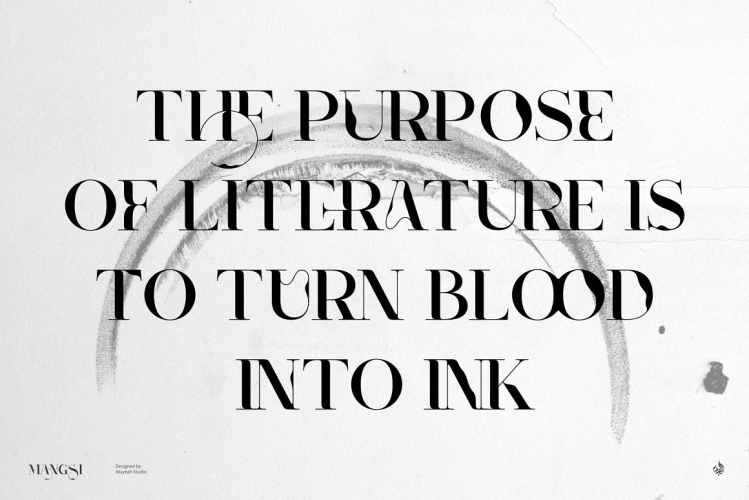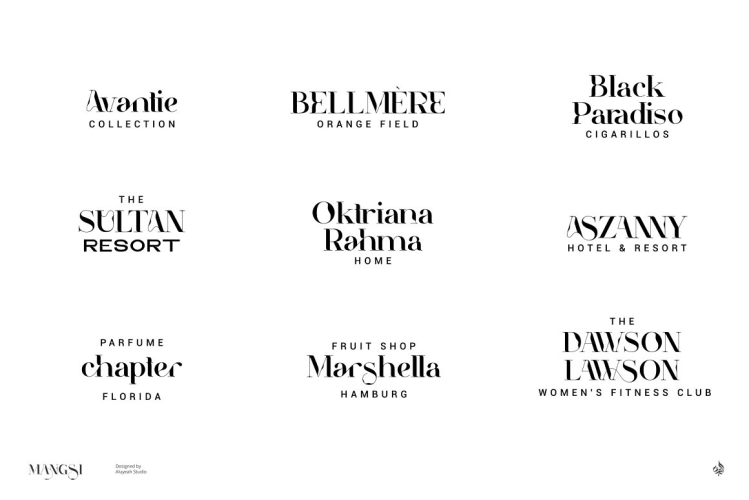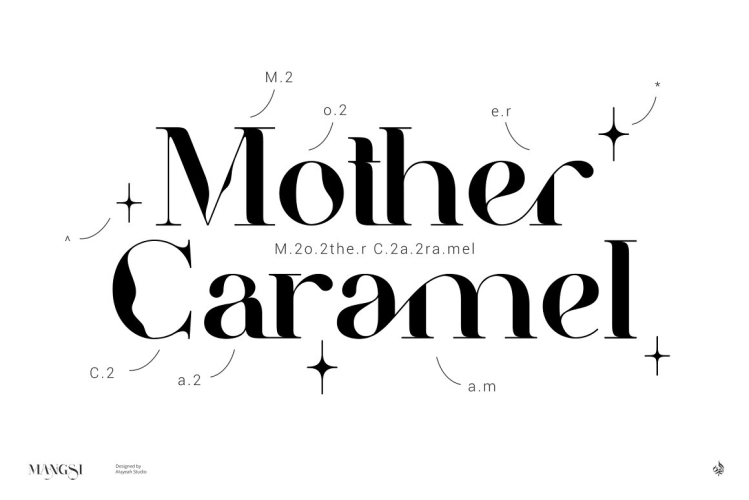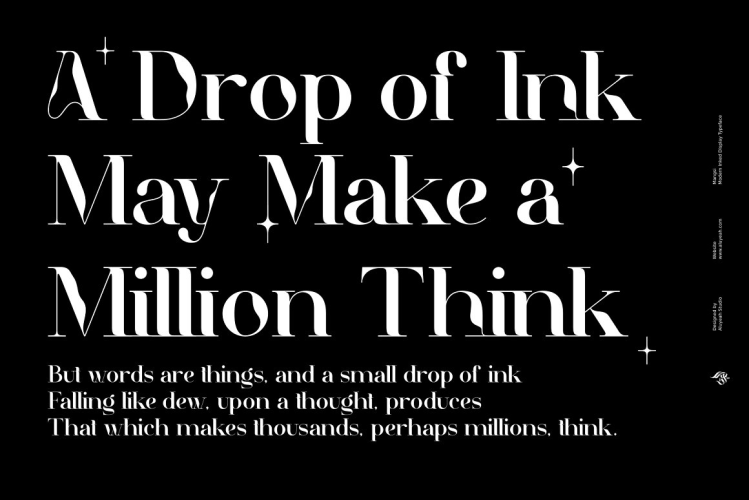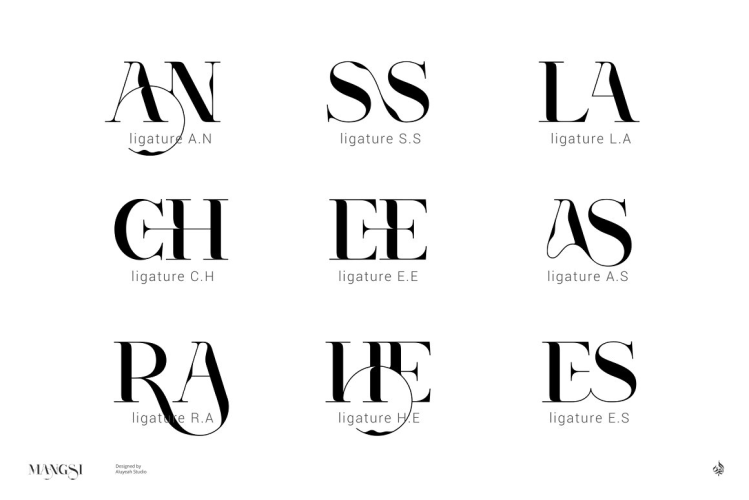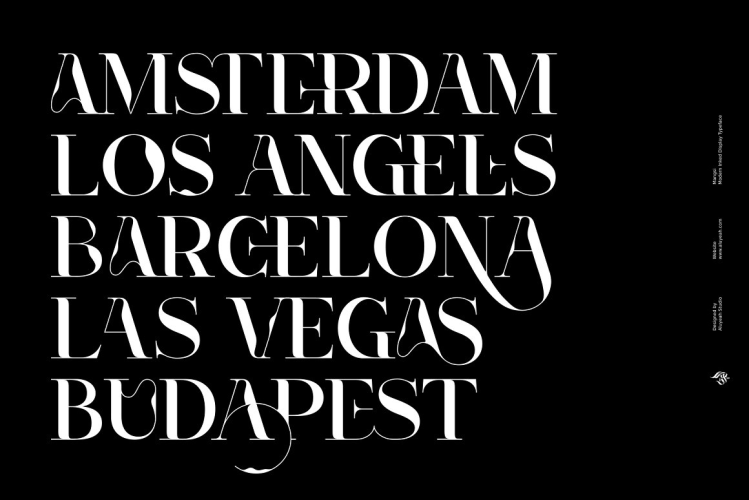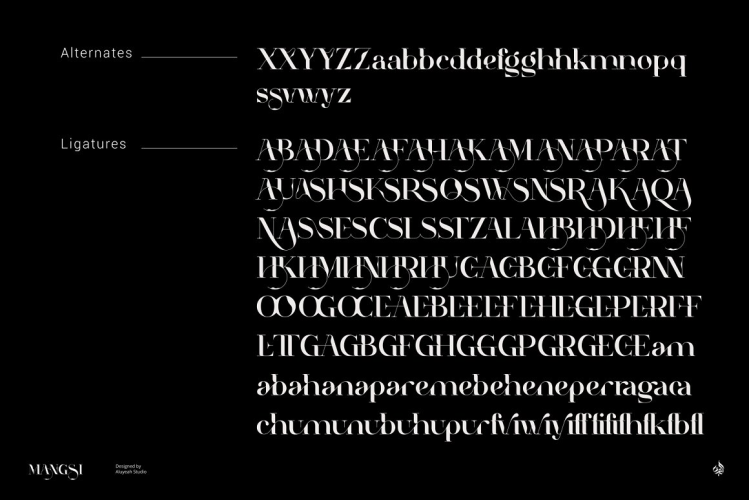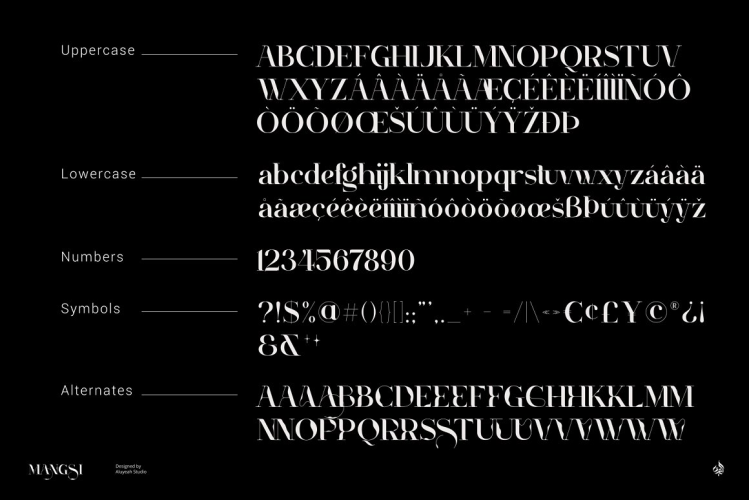
Mangsi Font
Mangsi Font in Javanese means ink. We want to create a modern display typeface with an inked-like feel by combining clean modern serif strokes, brush strokes, and the curved line made by the ink tank.
a modern inked display typeface that unites the beauty of the old lines with the clean modern lines. A simple, yet distinctive, elegant font that can be applied to many areas of design. Coming with 170+ stunning and super easy to use alternates and ligatures.
Very suitable for magazine, headline, website, ads, product package, and all type of design project you have.
Headlines and titles
Mangsi Font has enough character to carry a headline on its own; set it large and keep the supporting text plain.
Brand and product names
Short strings are where this typeface is strongest — a name, a label, a cover line.
Social and video graphics
Set Mangsi Font over a flat colour or a quiet photograph so the letterforms stay the focus.
It sits in the Modern Serif Font group and reads as brush, clean, display, elegant. That makes it a candidate wherever those qualities help: headings, packaging, social graphics and brand work. Set it at the size you plan to use before deciding.